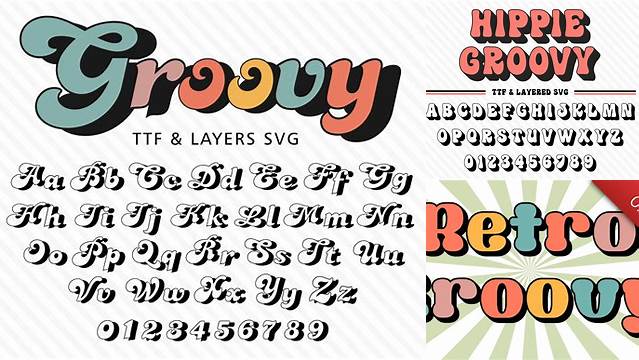
Groovy Retro Fonts: Free Alphabet Downloads
Hey there, font fanatics and design aficionados! Ready to take a trip back to the era of bell-bottoms, lava lamps, and far-out typography? Today, we're diving headfirst into the wonderfully wild world of groovy retro alphabet fonts. And the best part? We're hooking you up with some free downloads to get your creative juices flowing. So, buckle up, buttercup, and let's get this show on the road!
What Makes a Font "Groovy" and "Retro?"
Alright, before we jump into the downloads, let's break down what we mean by "groovy" and "retro." A groovy retro alphabet font typically evokes the design styles of the 1960s and 1970s. Think bold curves, psychedelic swirls, and a generally playful, energetic vibe. These fonts often feature rounded edges, bubble-like shapes, and a certain hand-drawn quality that sets them apart from more modern, minimalist typefaces. The whole point is to capture that feeling of optimism and freedom that defined the era. Using a groovy retro alphabet font is not just about choosing letters; it's about choosing a mood and an aesthetic that can instantly transport your audience back in time. When you select the right groovy retro alphabet font, you're not just adding text; you're adding character, nostalgia, and a whole lot of funk to your projects. Imagine the possibilities for posters, album covers, and even website headers. The world is your oyster, guys!
Top Characteristics of Groovy Retro Alphabet Fonts
So, what exactly makes a groovy retro alphabet font stand out from the crowd? Here are some key characteristics to keep an eye out for: Wavy lines are a staple. Many groovy retro alphabet fonts feature letters that seem to dance and undulate, creating a sense of movement and dynamism. Think of those psychedelic posters from the late '60s – that's the vibe we're going for! Rounded shapes are another defining characteristic. Sharp edges are out; soft, rounded forms are in. This gives the font a friendly, approachable feel, perfect for conveying a sense of warmth and nostalgia. Boldness is key! A groovy retro alphabet font isn't shy about making a statement. These fonts are often thick and chunky, demanding attention and adding a touch of boldness to your designs. Imperfection is perfection! Many groovy retro alphabet fonts have a hand-drawn quality, with slight imperfections that add to their charm and authenticity. This gives them a more organic, human feel compared to overly polished, digital fonts. Color potential is huge. While the font itself might be monochrome, groovy retro alphabet fonts often lend themselves well to vibrant, eye-catching color palettes. Think oranges, yellows, greens, and purples – the brighter, the better!
Where to Use Groovy Retro Alphabet Fonts
Okay, you've got your groovy retro alphabet font, but where do you use it? The possibilities are endless, but here are a few ideas to get you started: Poster designs are a no-brainer. Groovy retro alphabet fonts are perfect for creating eye-catching posters for concerts, parties, or events. Just add some vibrant colors and psychedelic imagery, and you're good to go! Album covers are another great option. If you're designing artwork for a retro-inspired album, a groovy retro alphabet font can help you capture the perfect vibe. Website headers can get a serious upgrade with the right font. Add a touch of retro flair to your website by using a groovy retro alphabet font for your headers and titles. Social media graphics can also benefit. Stand out from the crowd on social media by using a groovy retro alphabet font in your graphics and posts. T-shirt designs are a fun way to express yourself. Create unique and stylish t-shirts with groovy retro alphabet fonts that showcase your love for all things retro.
How to Choose the Right Groovy Retro Alphabet Font for Your Project
Choosing the right groovy retro alphabet font can feel overwhelming, but don't worry, guys! Here are a few tips to help you narrow down your options. Consider the overall tone of your project. Are you going for a fun, playful vibe, or something more serious and sophisticated? Choose a font that reflects the overall mood you're trying to create. Think about readability. While groovy retro alphabet fonts are all about style, it's important to make sure your text is still easy to read. Avoid fonts that are too decorative or illegible, especially for body text. Pay attention to kerning and spacing. Kerning refers to the space between individual letters, while spacing refers to the overall spacing between words and lines. Make sure the font you choose has good kerning and spacing to ensure readability. Test it out! Before committing to a font, try it out in your design software to see how it looks. Experiment with different sizes, colors, and layouts to make sure it works well with your overall design.
Designing with Groovy Retro Fonts: Tips and Tricks
Okay, now that you've got your groovy retro alphabet font installed, let's talk about how to use it effectively in your designs. Don't overdo it! While groovy retro alphabet fonts are all about making a statement, it's important to use them sparingly. Too much retro can quickly become overwhelming. Use them for headlines and titles. Groovy retro alphabet fonts are best used for headlines, titles, and other short bursts of text where you want to make a big impact. Pair them with simpler fonts for body text. To ensure readability, pair your groovy retro alphabet font with a simpler, more modern font for body text. This will create a nice contrast and keep your design from feeling too busy. Experiment with colors. Groovy retro alphabet fonts look great with bold, vibrant colors. Try using oranges, yellows, greens, and purples to create a retro-inspired color palette. Add some psychedelic elements. To really capture the retro vibe, consider adding some psychedelic elements to your design, such as swirls, patterns, and gradients. Have fun and be creative! The most important thing is to have fun and experiment with different ideas. Don't be afraid to try new things and push the boundaries of your creativity. When you're working with a groovy retro alphabet font, you have a unique opportunity to create designs that are both stylish and nostalgic.
Groovy Retro Fonts in Modern Design Trends
You might think that groovy retro alphabet fonts are a thing of the past, but they're actually making a big comeback in modern design trends. Nostalgia is always in style, guys. People love feeling nostalgic for the past, and groovy retro alphabet fonts are a great way to evoke those feelings. They add a unique touch. In a world of sleek, minimalist designs, groovy retro alphabet fonts can help your work stand out from the crowd. They bring a sense of fun and playfulness. Groovy retro alphabet fonts are perfect for adding a touch of fun and playfulness to your designs. They're a great way to inject some personality into your work. They're versatile. Groovy retro alphabet fonts can be used in a variety of different projects, from website design to poster design to branding. So, if you're looking for a way to add some retro flair to your designs, consider using a groovy retro alphabet font. You might be surprised at how much of an impact it can make.
Examples of Popular Groovy Retro Alphabet Fonts
Need some inspiration? Here are a few examples of popular groovy retro alphabet fonts that you can download for free or purchase online: Cooper Black is a classic groovy retro alphabet font with thick, rounded letters. It's perfect for headlines and titles. Lobster is a script font with a retro feel. It's great for adding a touch of elegance to your designs. Bauhaus 93 is a geometric sans-serif font with a retro vibe. It's perfect for creating a modern yet nostalgic look. ITC Avant Garde Gothic is a stylish sans-serif font with a retro feel. It's great for adding a touch of sophistication to your designs. Playbill is a bold, condensed font with a retro vibe. It's perfect for creating eye-catching posters and advertisements. These are just a few examples of the many groovy retro alphabet fonts that are available. Do some research and find the perfect font for your next project!
Alright, font fanatics, that's a wrap! We hope you've enjoyed this deep dive into the world of groovy retro alphabet fonts. Now go forth and create some far-out designs that would make even Austin Powers jealous! Peace out!